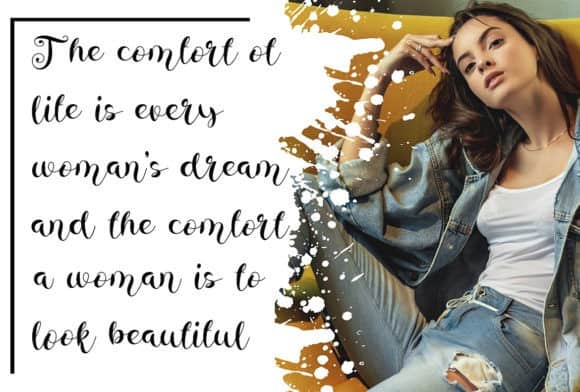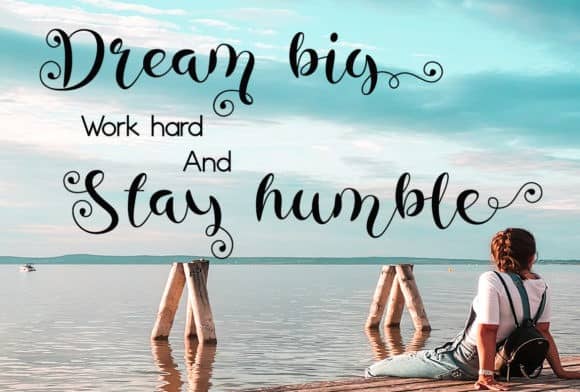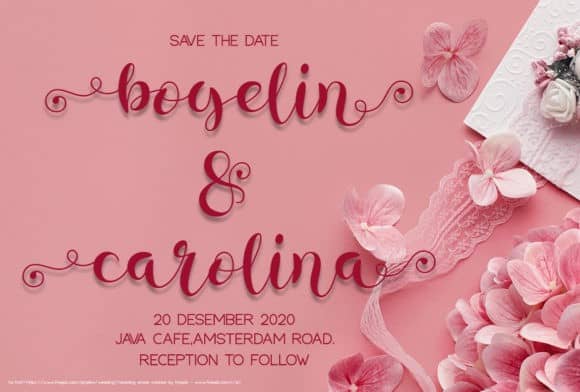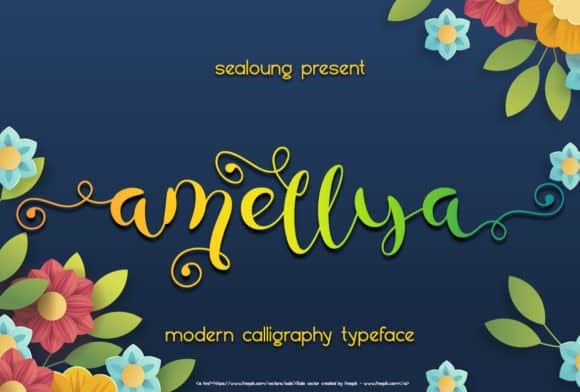
Amellya Calligraphy Font
Amellya Calligraphy Font is a delicate and incredibly distinct hand-drawn font. Fall in love with its incredibly versatile style and use it to create spectacular designs! It’s designed and shared by Sealoung. This font is a delicate and elegant handwritten font. Its distinct and well rounded letters make this font a masterpiece. Fall in love with its incredibly versatile style and use it to create spectacular designs!